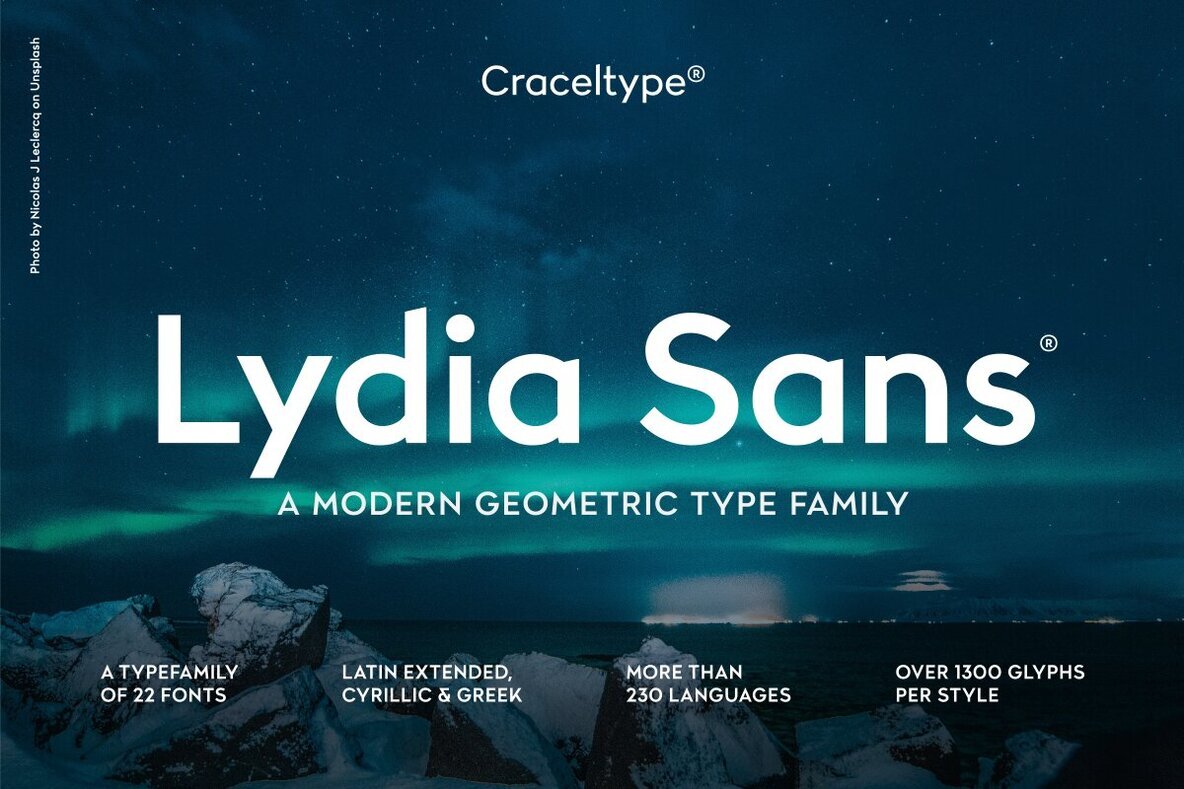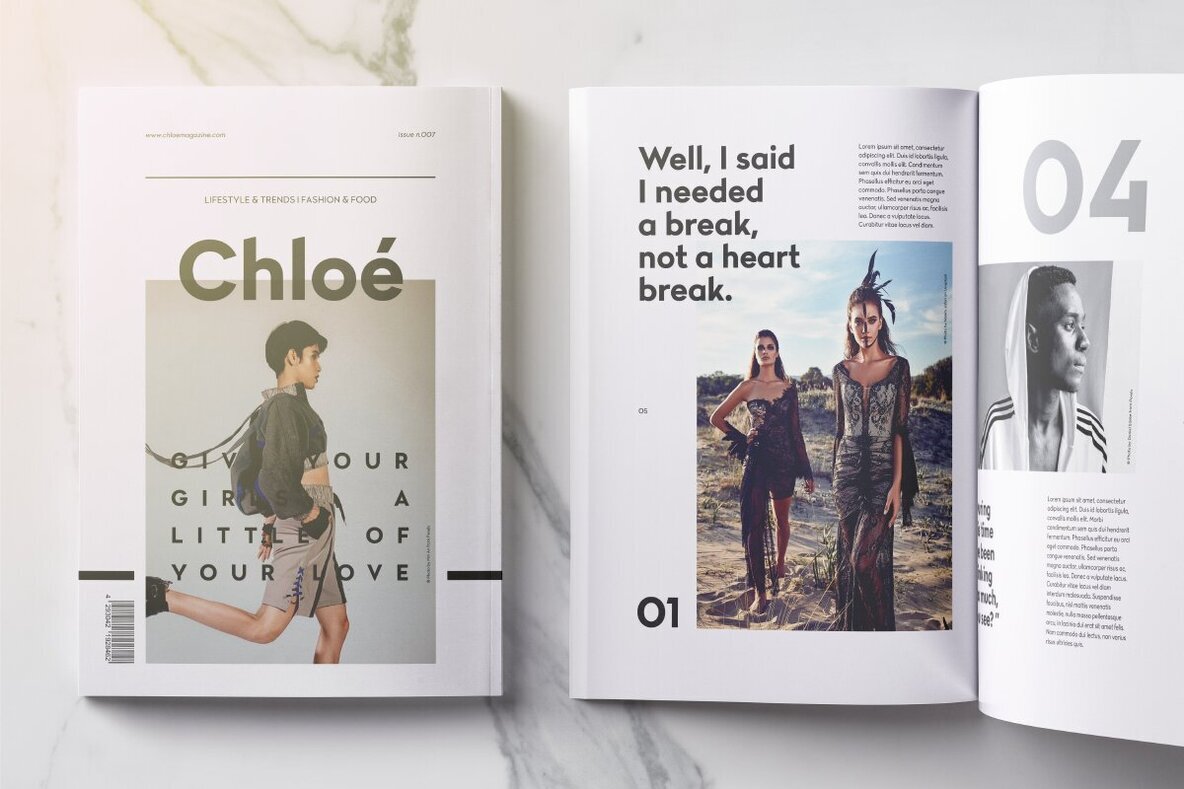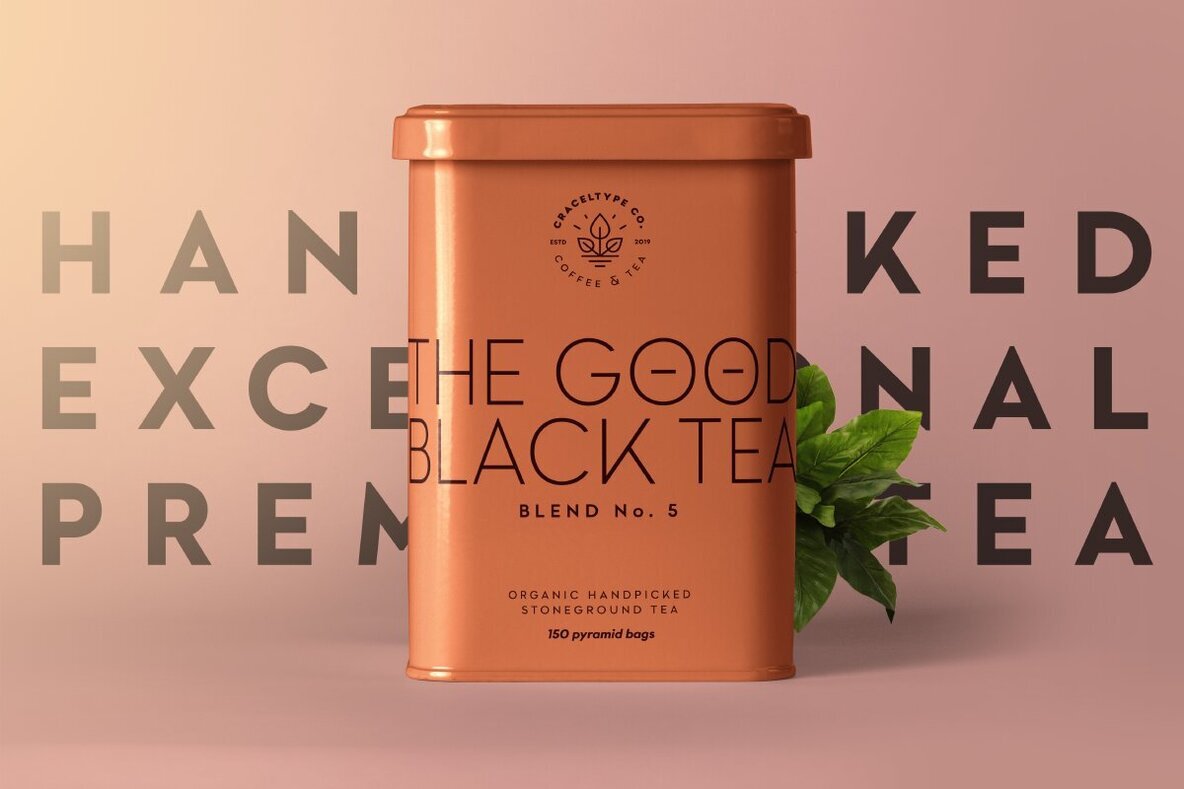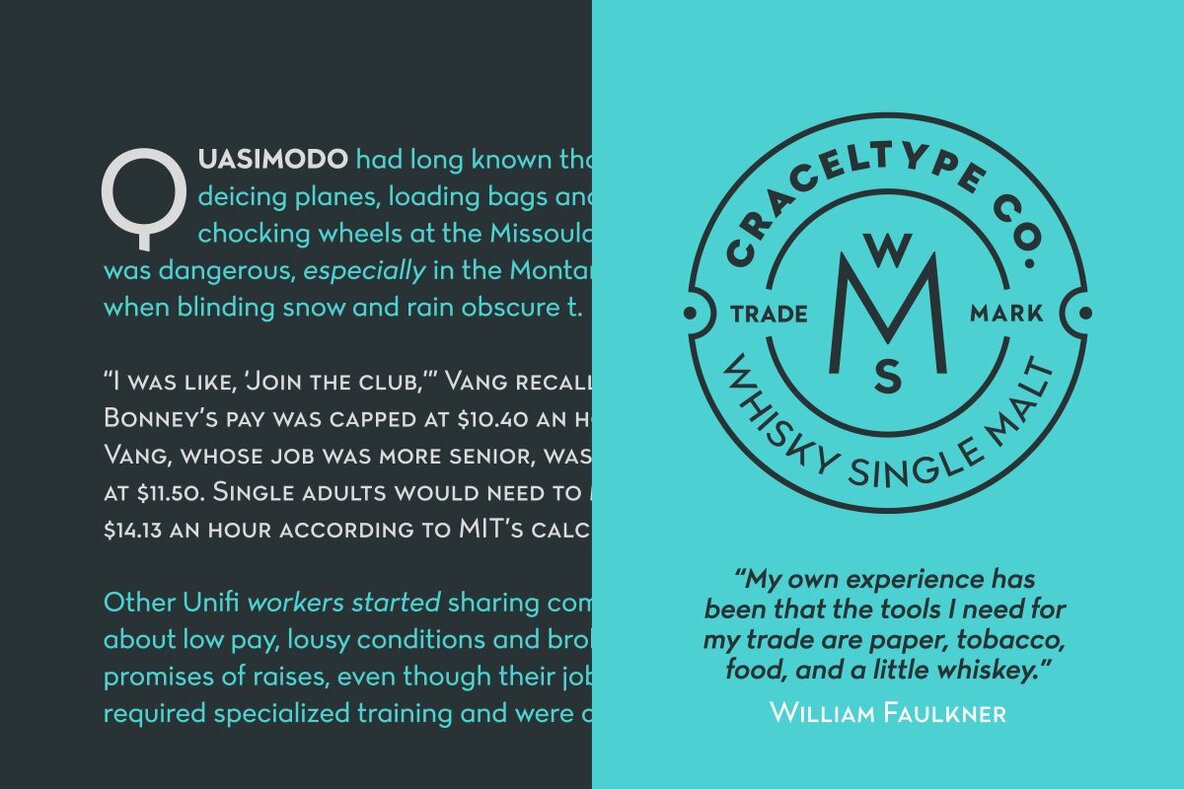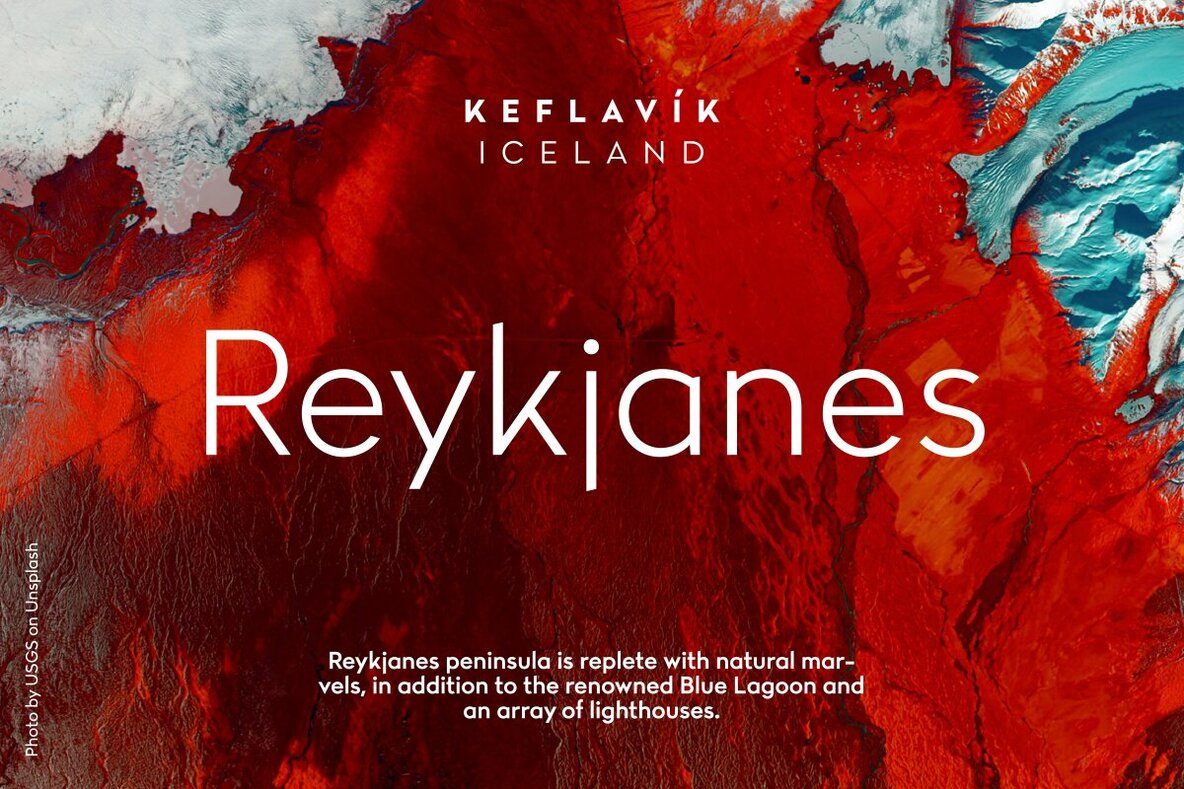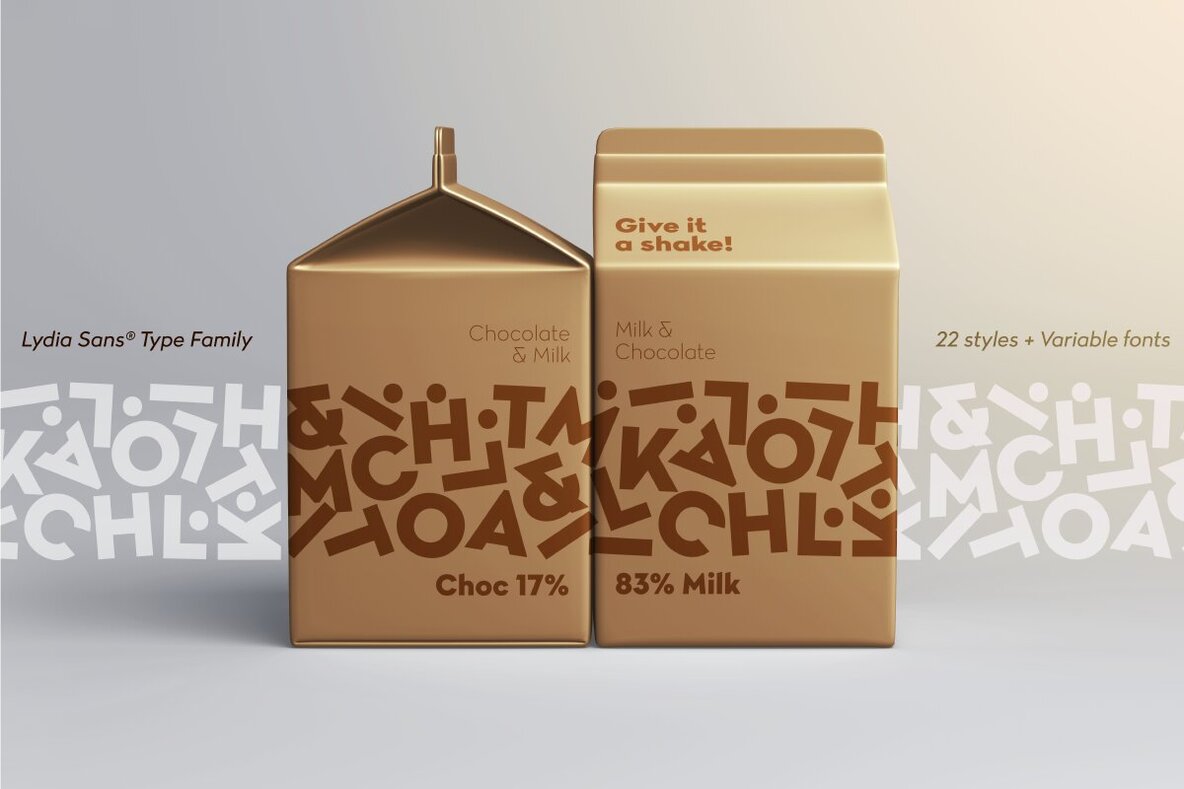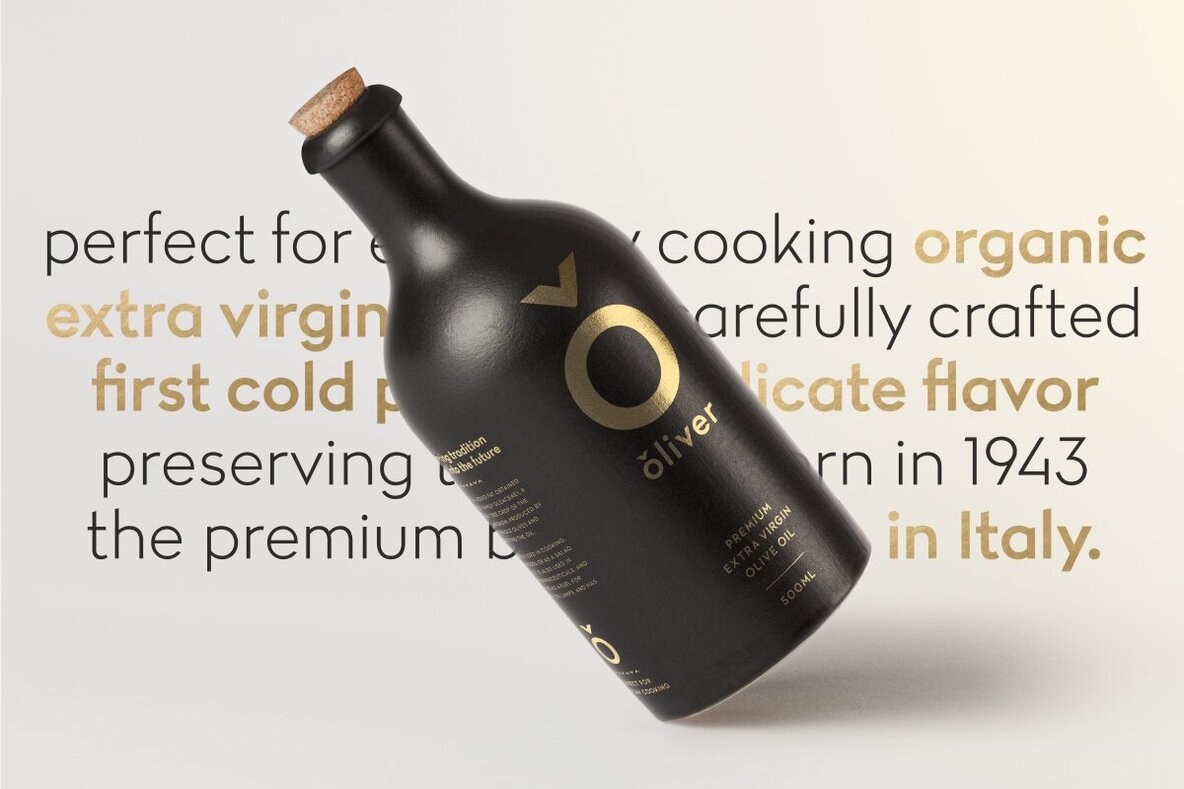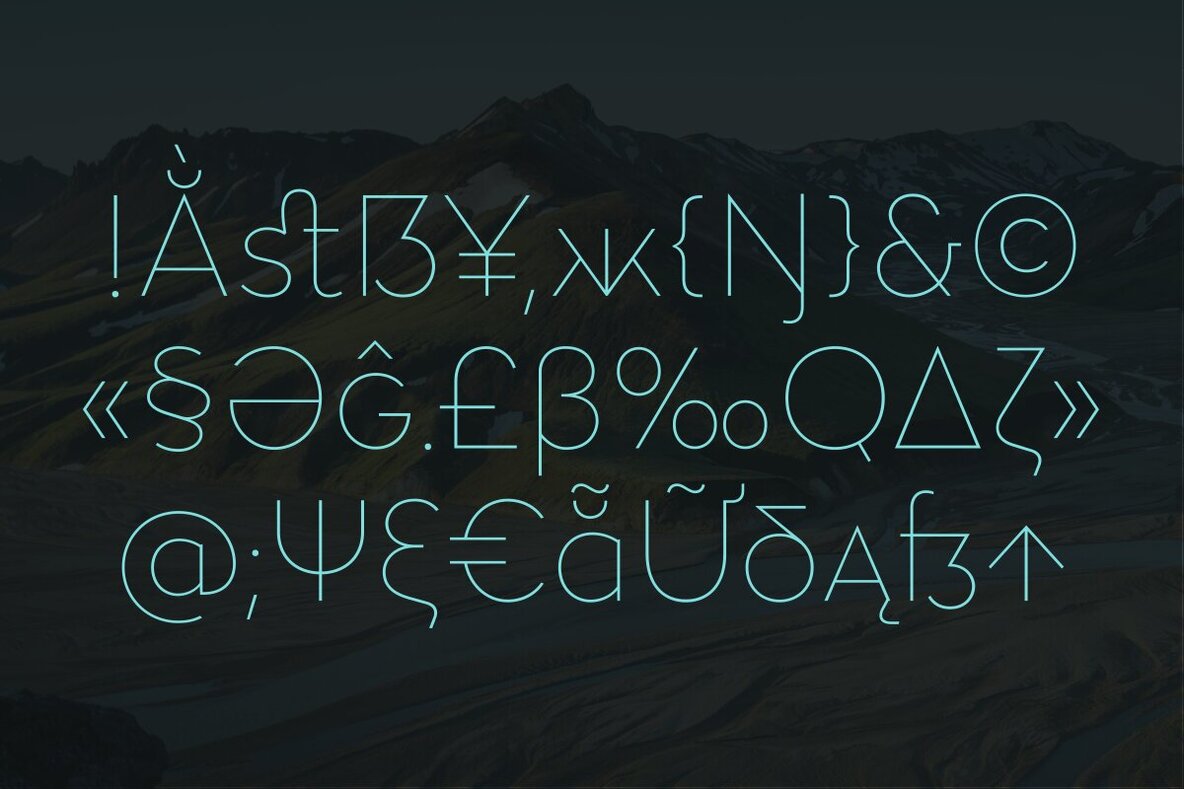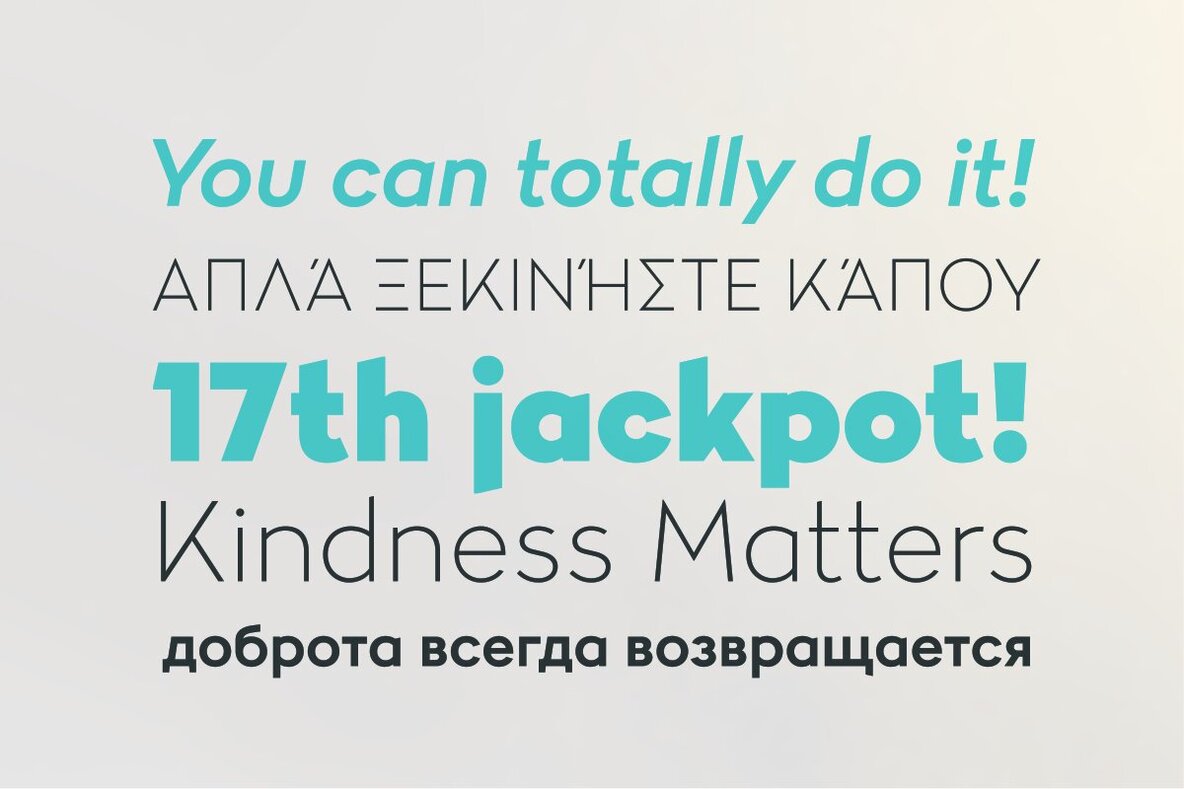
Lydia Sans Font
Inspired by the elegance and simplicity of 1930s modernist design, Lydia Sans merges past and present through its graceful and direct form. This typeface is a homage to a cherished era, offering exceptional legibility while resonating with a deep sense of nostalgia. With an impressive array of 22 styles and more than 1300 glyphs in each, Lydia Sans is an indispensable resource for designers seeking versatility. Its multilingual support extends over 230 languages, including extended Latin, Cyrillic, and Greek, making it a globally accessible choice for diverse projects.Lydia Sans: A Nostalgic Tribute to Modernist Typography